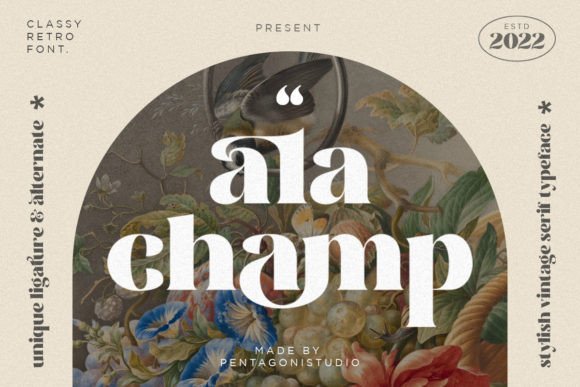
Unleash the Charm of Vintage with Ala Champ Font: Where History and Modernity Intersect
Step into a world of timeless elegance and captivating charm with Ala Champ Font, a display font that embodies the essence of vintage aesthetics. Crafted by the skilled hands of Pentagonistudio, Ala Champ is not just a font; it's an artistic expression that breathes life into your creative endeavors.
As you delve into the world of Ala Champ, you'll discover a treasure trove of bold and stylish characters, each possessing a cheerful personality that radiates joy and exuberance. With its playful yet elegant touch, Ala Champ effortlessly elevates your designs, adding a touch of sophistication that commands attention.
The versatility of Ala Champ knows no bounds. Whether you're designing logos, invitations, posters, or any other creative project, this display font seamlessly adapts, enhancing your words with a timeless charm. Its unique glyphs and ligatures, accessible with ease through PUA encoding, provide endless opportunities for customization, ensuring your designs stand out from the ordinary.
Embrace the nostalgia of vintage design with Ala Champ Font, a font that captures the allure of bygone eras while maintaining a contemporary edge. Let your creativity soar as you weave tales of the past with a modern twist.